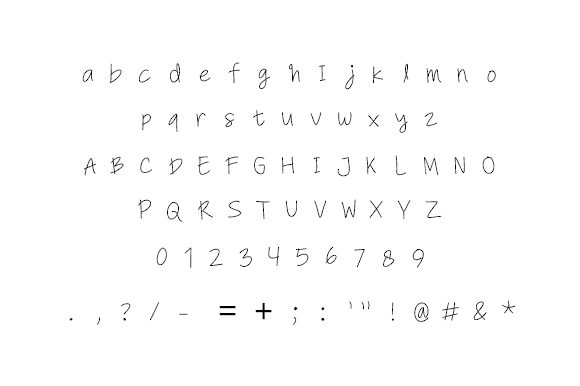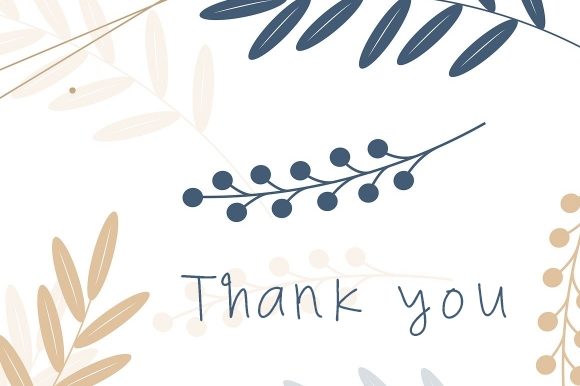
Hisikilii Font
About Hisikilii Font
Hisikilii is a modern handwritten font. It features chunky and extended characters that will look particularly adept when used in logos, branding, packaging design, and much more. This masterfully designed font is a true must-have.